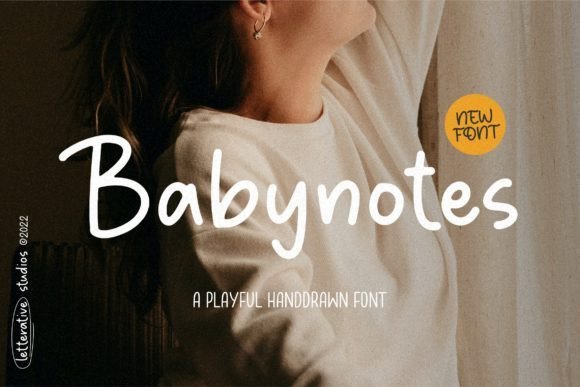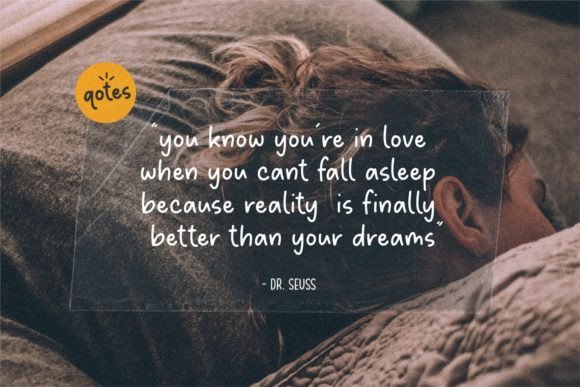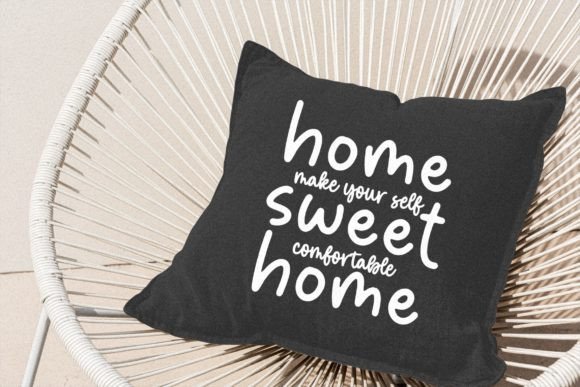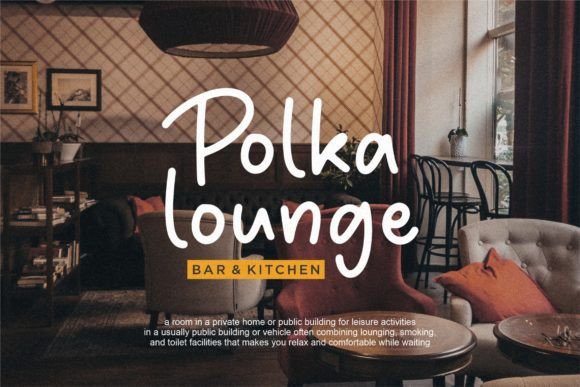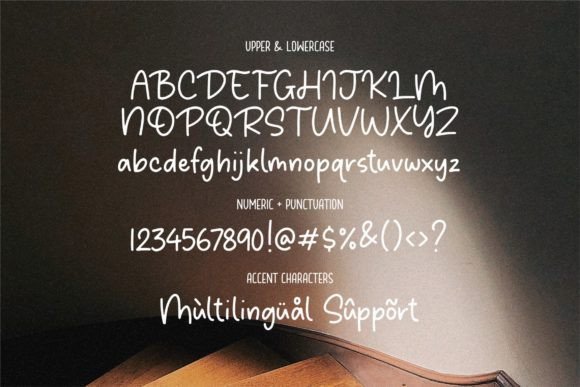
Unleash Your Creativity with the Babynotes Font
Who hasn’t been in that moment of pure inspiration, surrounded by colorful pens, paper, and a blank canvas, just waiting to bring a new idea to life? The excitement of creating something from scratch is what drives us as designers and crafters. And, for those who have ever found themselves in this exact scenario, we have just the thing to take your projects to the next level – the Babynotes Font.
This playful hand-drawn font is perfect for adding a personal touch to your crafts, digital designs, presentations, or greeting cards. With its unique charm and versatility, the Babynotes Font has the potential to become your go-to choice for any occasion. Whether you’re a professional designer or a hobbyist, this font is sure to bring a smile to your face and add a touch of whimsy to your creations.
Babynotes Font Key Features
- Font Family: Babynotes, a playful and cursive script font designed for handwritten notes and personal messages.
- Unique Characteristics: Features a mix of uppercase and lowercase letters, with swashes and flourishes that add a personal touch to handwritten notes and messages.
Babynotes Font Review
I’ve recently had the chance to work with Babynotes Font, and I must say it’s a unique and charming addition to any design project. Here are some of my thoughts:
- Handwritten feel: Babynotes Font has a lovely, handwritten feel that’s perfect for creating a personal and intimate atmosphere in designs.
- Legibility: Despite its cursive nature, the font is surprisingly easy to read, making it a great choice for body text.
- Whimsical charm: The font’s playful, childlike quality adds a touch of whimsy to designs, making it perfect for projects that require a lighthearted tone.
- Customizability: Babynotes Font is a bit limited in terms of customizability, which may make it difficult to achieve a specific look or feel.
- Spacing: The font’s spacing can be a bit inconsistent, which may affect the overall flow of text.
Overall, I think Babynotes Font is a great choice for projects that require a personal, handwritten feel. While it has some limitations, its unique charm and legibility make it a worthwhile addition to any designer’s toolkit.
Babynotes Font: A Practical Application Guide
The Babynotes Font is a beautiful, cursive font designed specifically for creating personalized baby-related designs. To use it, you’ll need to have a font file installed on your computer or access to a design platform that supports font uploads.
To get the most out of the Babynotes Font, try the following:
1. Use it for baby-related designs, such as baby announcements, nursery decor, and baby shower invitations.
2. Experiment with different font sizes, colors, and combinations to create unique and eye-catching designs.
3. Pair the Babynotes Font with other fonts to create a visually appealing contrast.
Alternatives to Babynotes Font for Designers
Great Vibes Font is a modern, elegant script font suitable for various design projects, such as invitations, wedding cards, and branding materials. It features a fluid, connected feel and is ideal for creating a whimsical and romantic atmosphere.
Compared to Babynotes Font, Great Vibes Font is more polished and refined, making it suitable for high-end designs. While Babynotes Font has a more childlike feel, Great Vibes Font is more versatile and can be used for a wider range of applications.